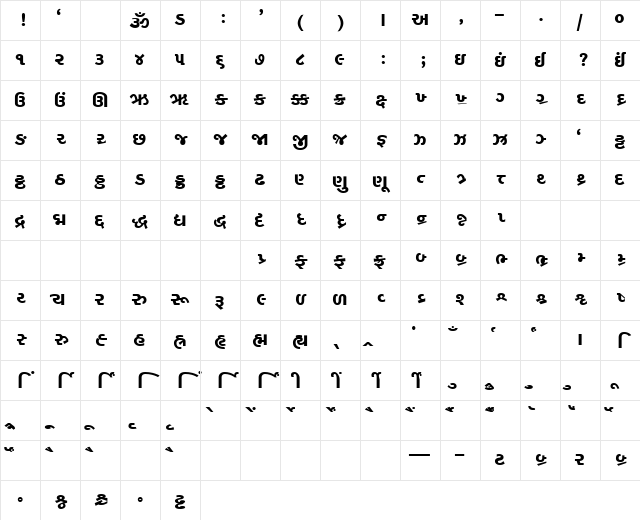
AkrutiGujLekha Bold Free Font
AkrutiGujLekha Bold
AkrutiGujLekha Family
AkrutiGujLekha Bold
Design Context for AkrutiGujLekha
AkrutiGujLekha is a composed and adaptable typeface that performs quietly and consistently across a wide range of design contexts. Its bold stroke weight gives it real presence on the page.